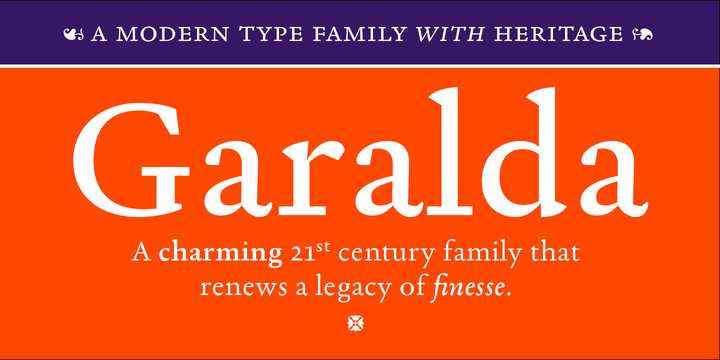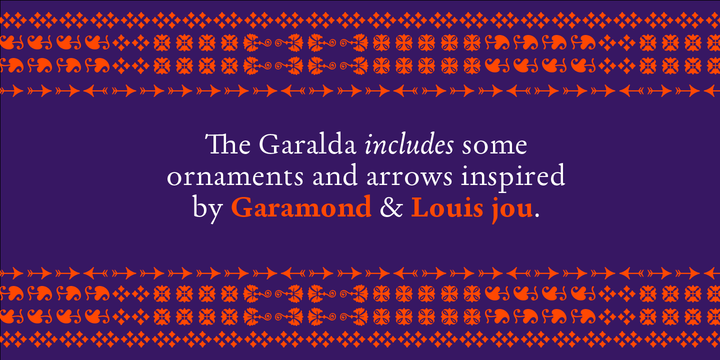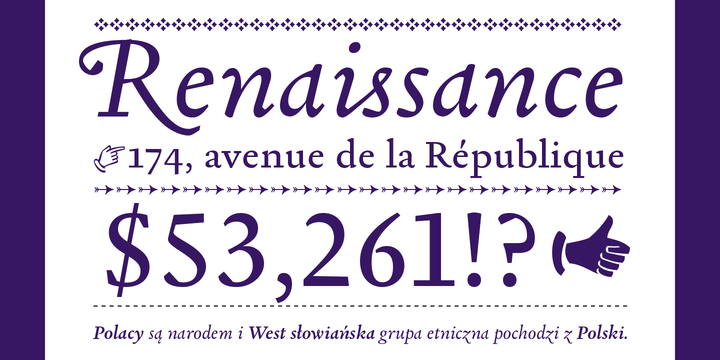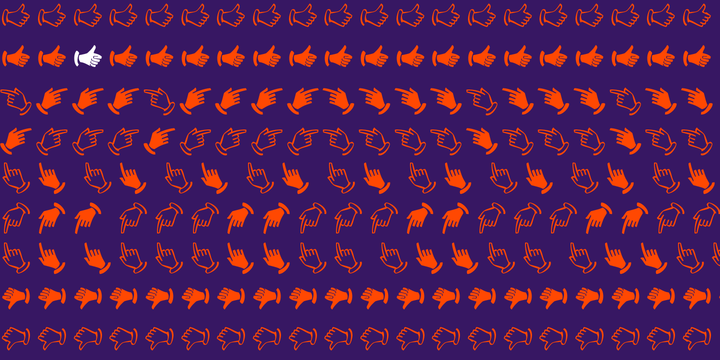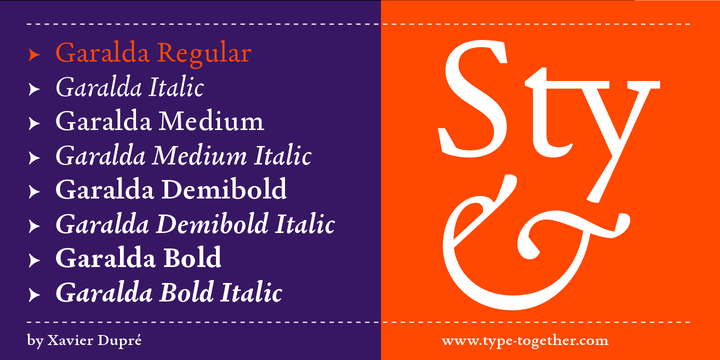
Garalda Font Family
About this font family
Type designer Xavier Dupré’s Garalda is a charming 21st century family that renews a legacy of finesse. As paragraphs on a page, Garalda’s overall impression is of a workaday personality, committed to the main purpose of the job: easy long-form reading. But setting it in display sizes proves something different: This reinvented Garamond is anything but basic.